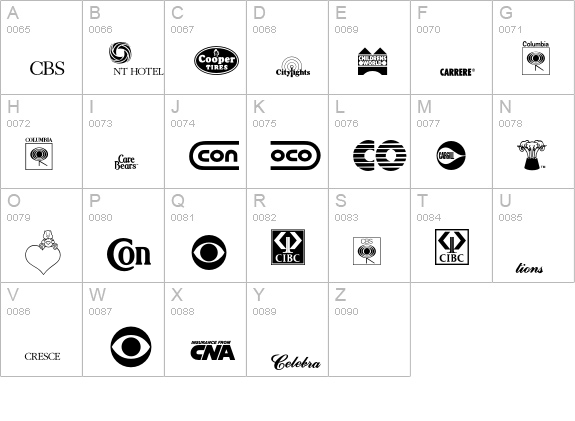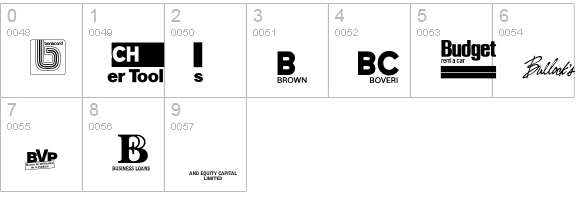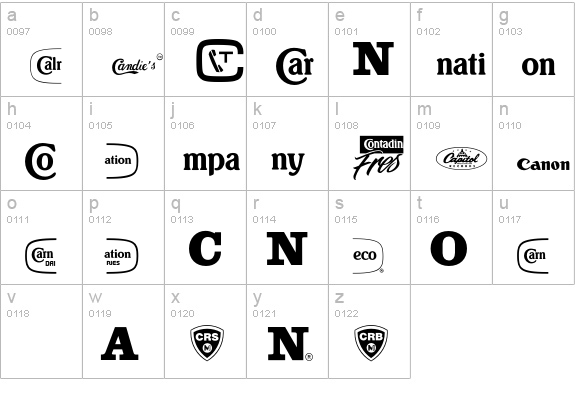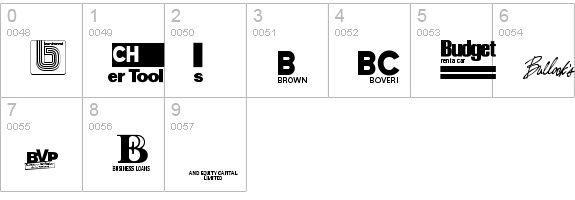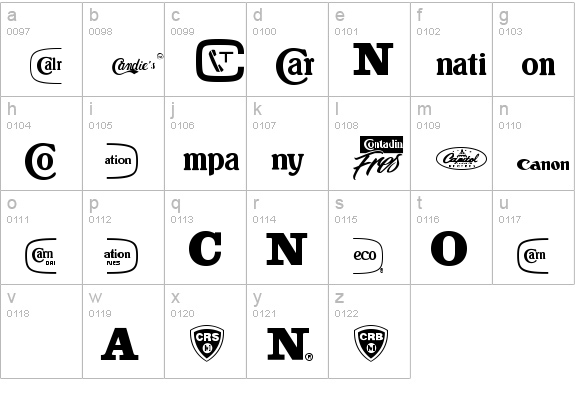
LogosCompanyP04 Font Details
LogosCompanyP04 font is a modern and sophisticated typeface that exudes elegance and professionalism. With its clean lines and stylish design, this font is perfect for a wide range of design projects, from branding to advertising. The sleek and versatile nature of LogosCompanyP04 font makes it suitable for both digital and print applications, ensuring that your text always looks polished and refined. What sets LogosCompanyP04 font apart is not just its aesthetic appeal, but also its accessibility. This font is available for free download at FontsMarket.com, making it easy for designers and creatives to access and use in their projects. Whether you're working on a logo, website, or marketing materials, LogosCompanyP04 font is a reliable choice that will elevate the look of your designs. Download LogosCompanyP04 font today and add a touch of sophistication to your next project.